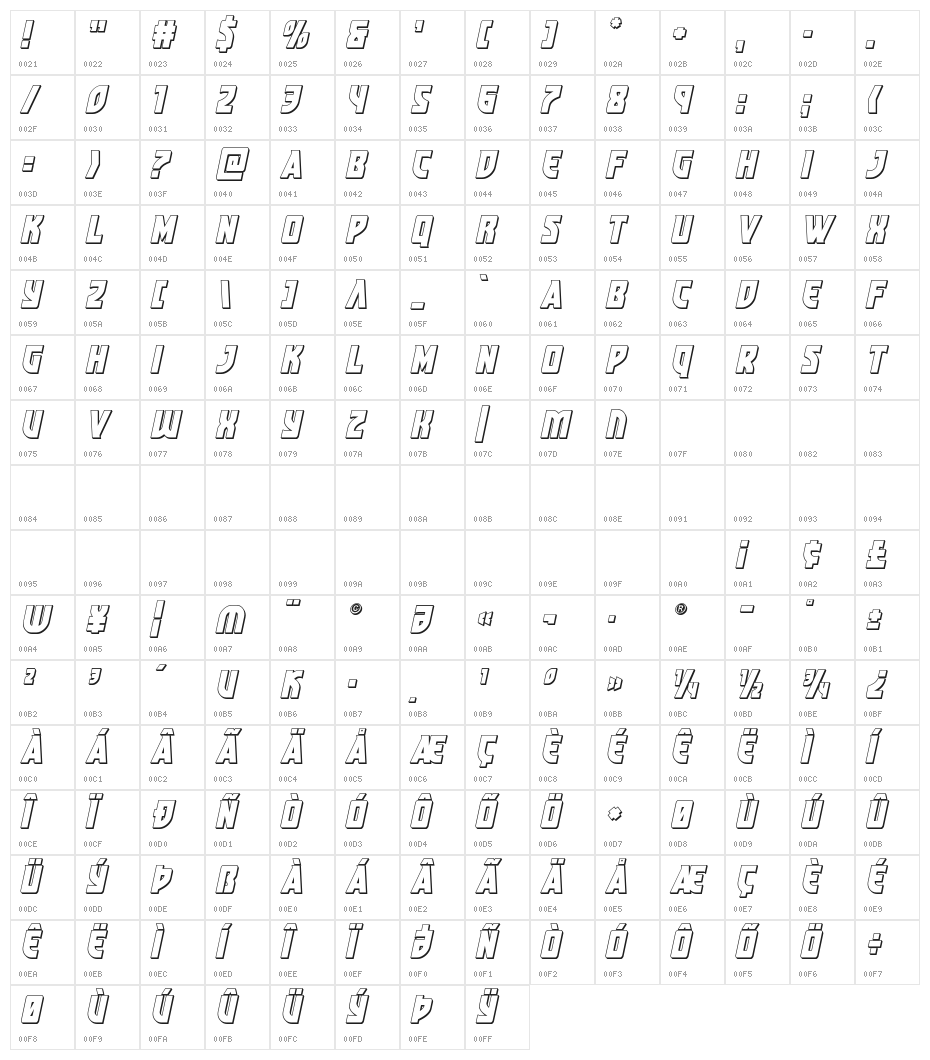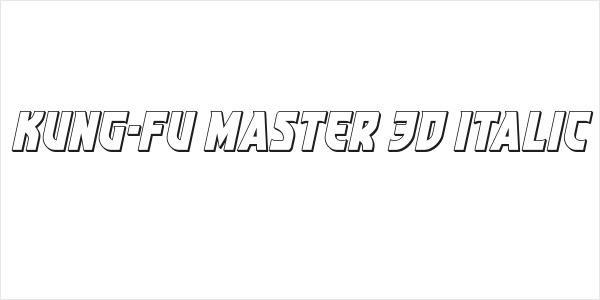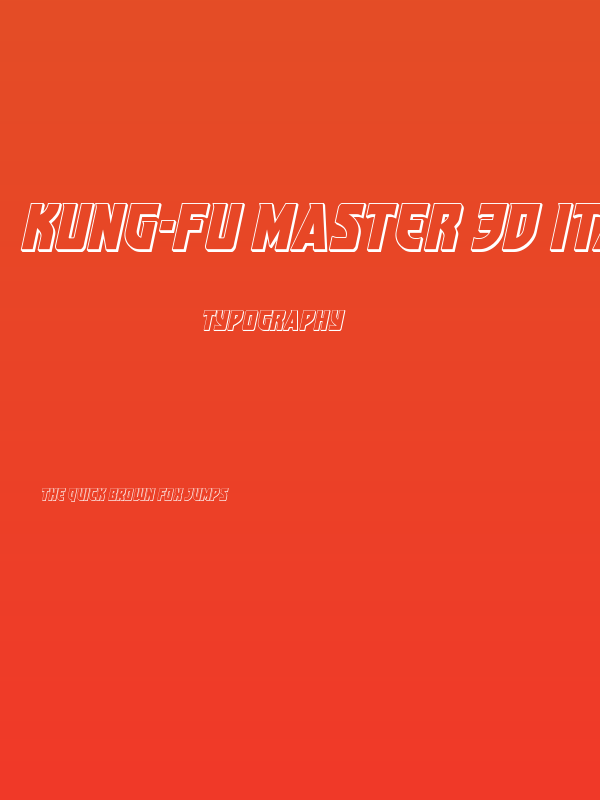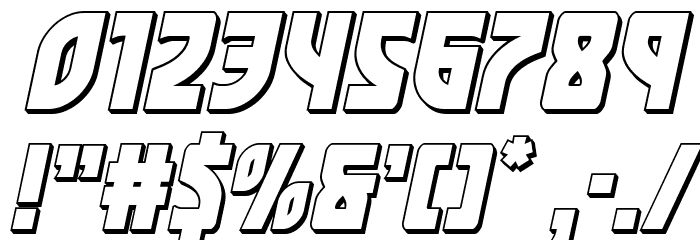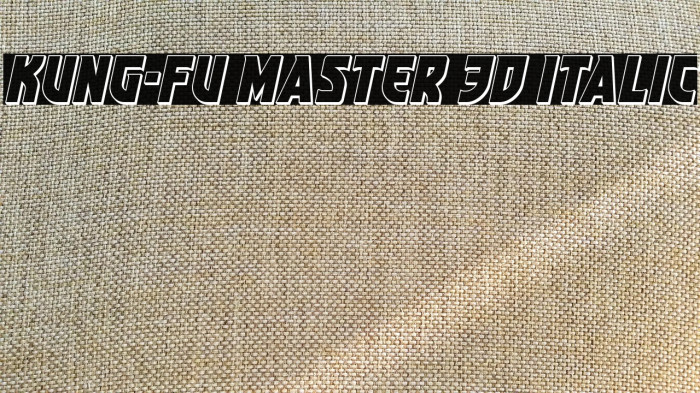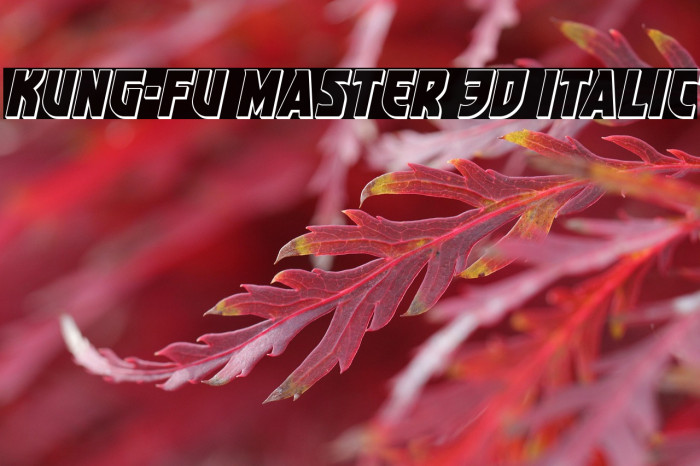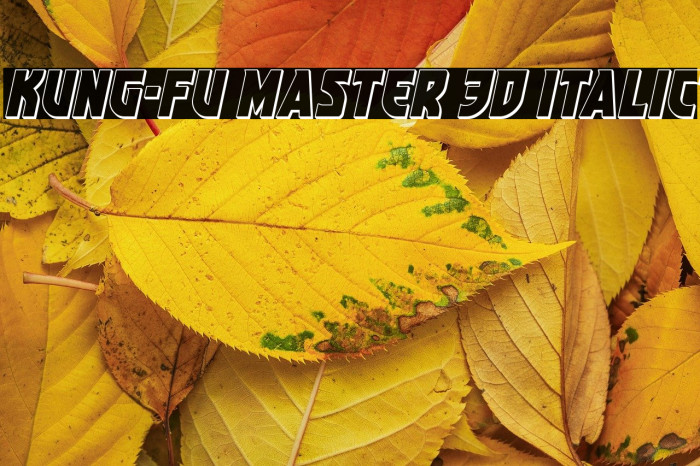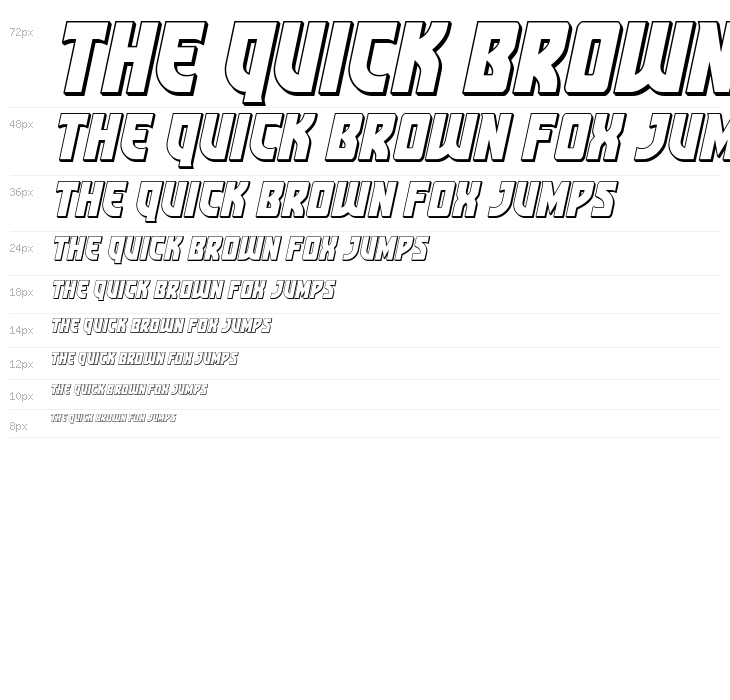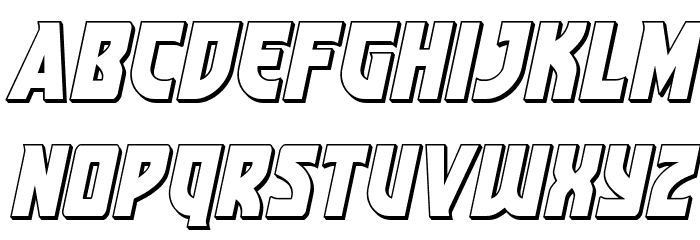
Kung-Fu Master 3D Italic Font
Kung-Fu Master 3D Italic Description
This font features a bold, italicized style with a distinct 3D effect, giving it a dynamic and energetic appearance. The characters are angular and slightly condensed, with sharp edges and a strong presence. The design incorporates a shadow effect that enhances the three-dimensional look, making it stand out on any page. The uppercase and lowercase letters maintain consistency in style, while the numbers and special characters are crafted to match the overall aesthetic. This font is ideal for projects that require a bold and impactful visual statement.
| Proposed Projects | Ideal for video game titles, action movie posters, sports branding, and dynamic advertising campaigns. |